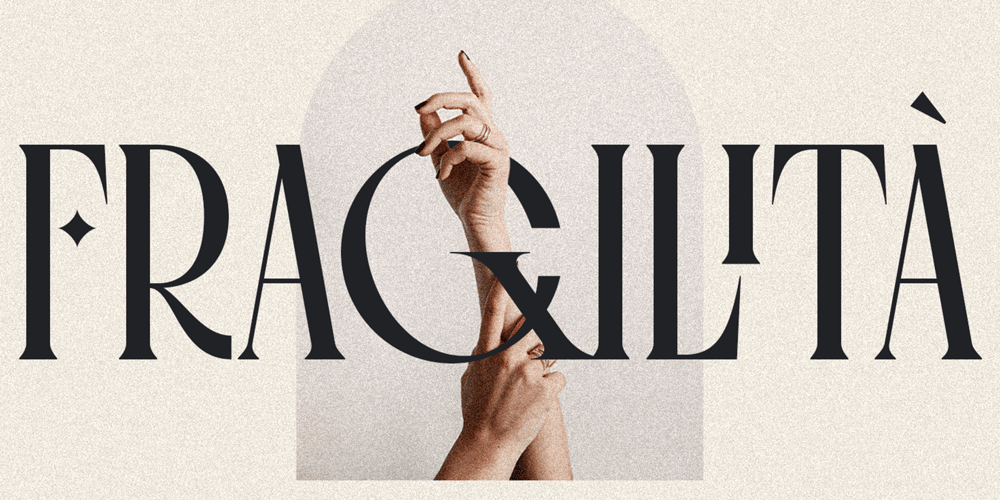
Fragilita Font Family was designed by SilverStag and published by SilverStag. Fragilita contains 1 styles and family package options. Introducing Fragilità, a captivating serif font that embodies the delicate balance of classic elegance and modern innovation. With its exquisitely crafted characters, high contrast, and subtle ligatures, Fragilità seamlessly blends the charm of yesterday with the spirit of today.Fragilità’s unique design harmoniously blends elements of both retro and modern aesthetics. Its condensed letterforms evoke a touch of nostalgia, reminiscent of classic serif fonts from the past. Yet, the font’s modern sensibilities shine through in its circular O, Q, and C characters, which retain their full circularity, adding a touch of contemporary sophistication.Fragilità’s high contrast between the thick and thin strokes of its characters ensures exceptional readability across various mediums. Whether gracing the pages of a book, adorning a website, or captivating viewers on a digital screen, Fragilità remains effortlessly legible.Fragilità’s extensive library of ligatures adds a touch of refinement and sophistication to your text. These intricate pairings of letters flow seamlessly together, creating a sense of continuity and elegance that elevates your written expression.Fragilità’s comprehensive support for over 92 languages makes it an invaluable tool for anyone seeking a versatile font that can transcend cultural boundaries. With its adaptability to a wide range of languages, Fragilità ensures that your message resonates with audiences worldwide.We understand that quality fonts shouldn’t be a luxury reserved for a select few. That’s why Fragilità is available for an incredibly affordable price of just $24, making it accessible to designers and creative professionals of all levels.With its exquisite design, exceptional readability, and ligature-rich character, Fragilità is a font that will elevate your creative projects to new heights. Whether you’re crafting elegant body text, designing eye-catching headlines, or creating captivating marketing materials, Fragilità will add a touch of timeless elegance and modern sophistication to your work.Embrace the delicate balance of classic charm and modern innovation with Fragilità, your new go-to serif font for all your creative endeavors.Would you like to get 5 completely free fonts worth over $75? No tricks, no hidden words, terms or anything. Just subscribe to my newsletter, make sure to check your email to approve the subscription, add me to your contacts so that the emails don’t end up in spam folder and you will get 5 fonts for free. The fonts are packed with alternates, ligatures and some even come with extra goodies.https://view.flodesk.com/pages/63594052b967a943dd6cc528Happy creating everyone!